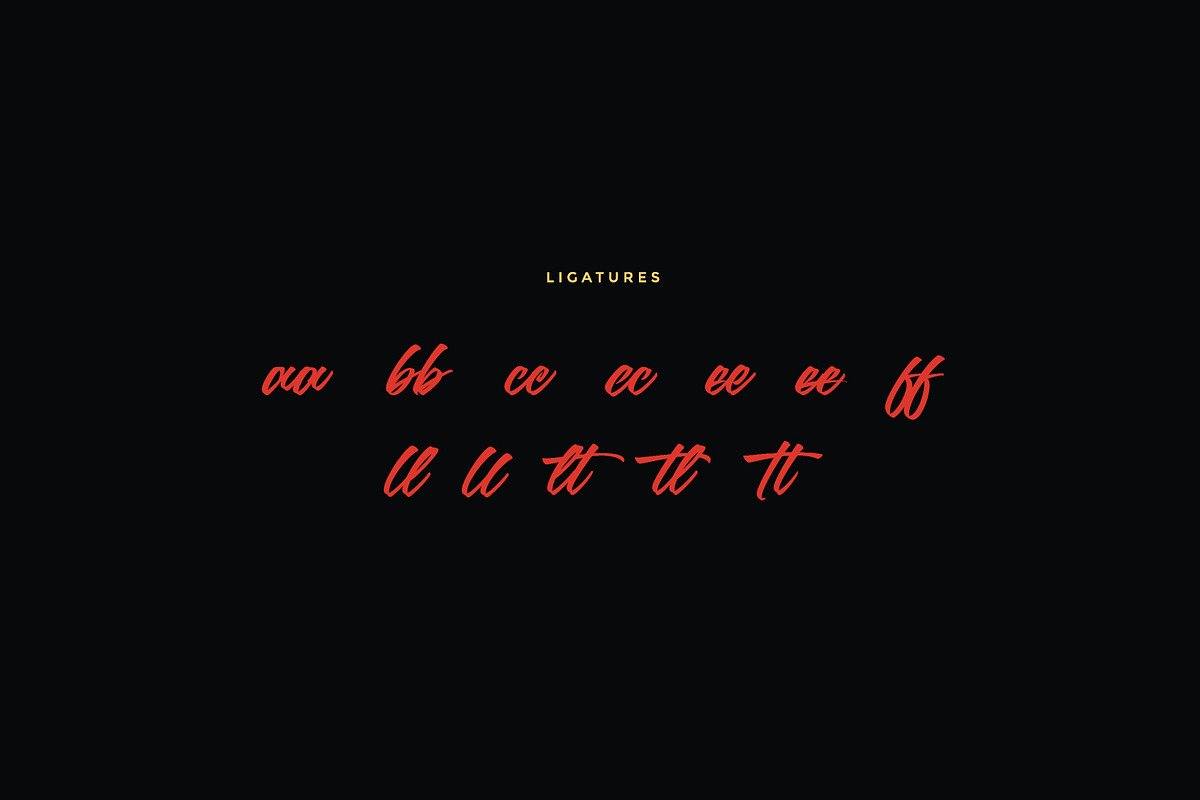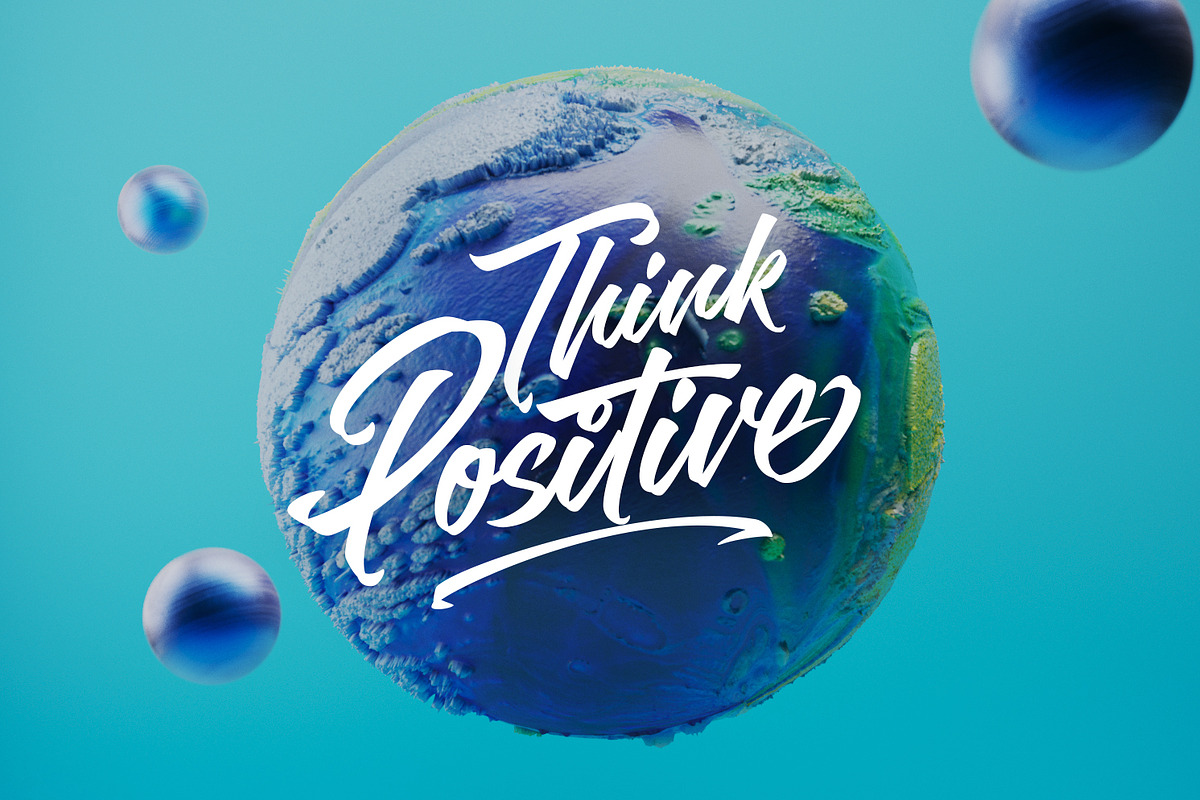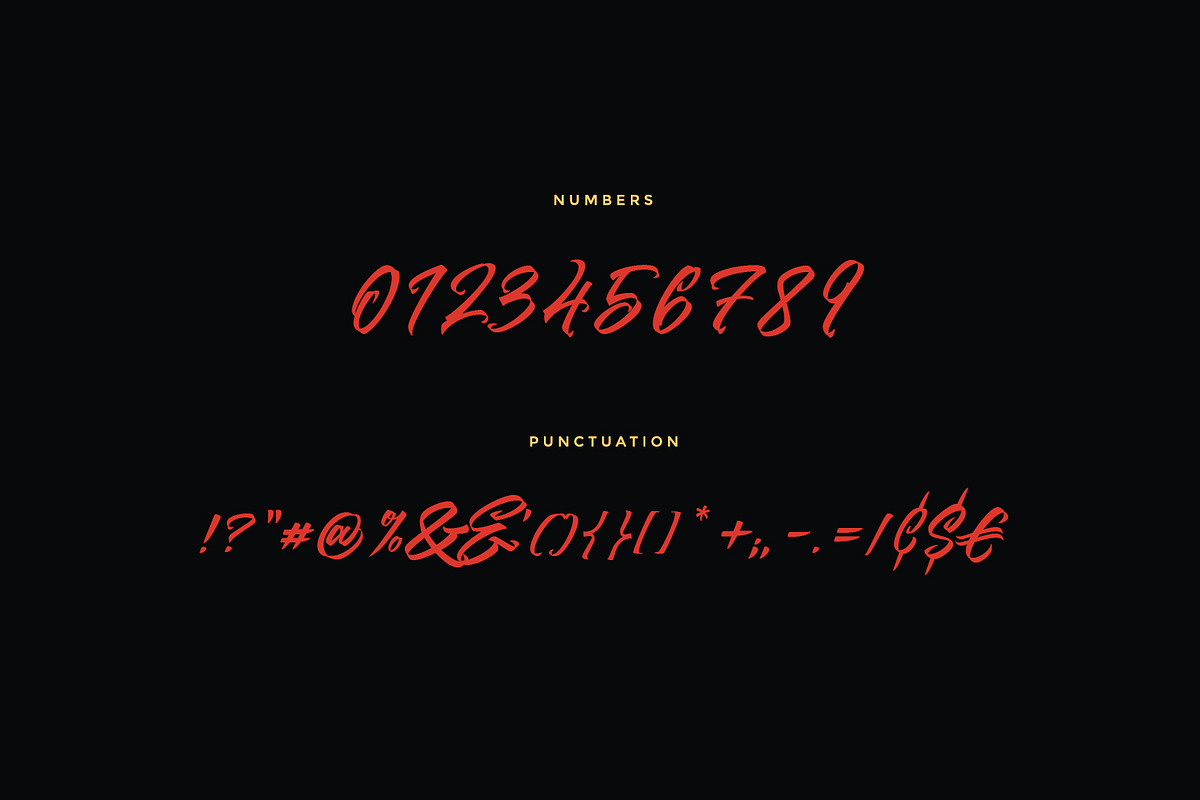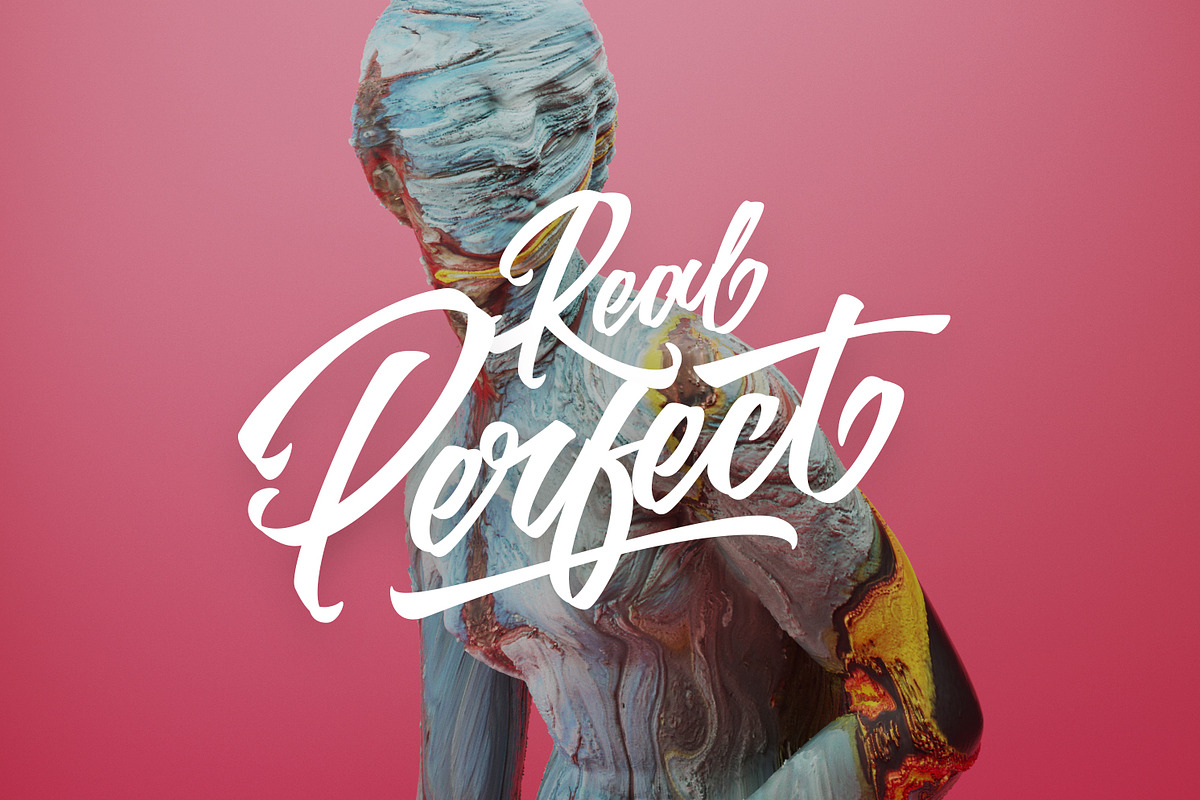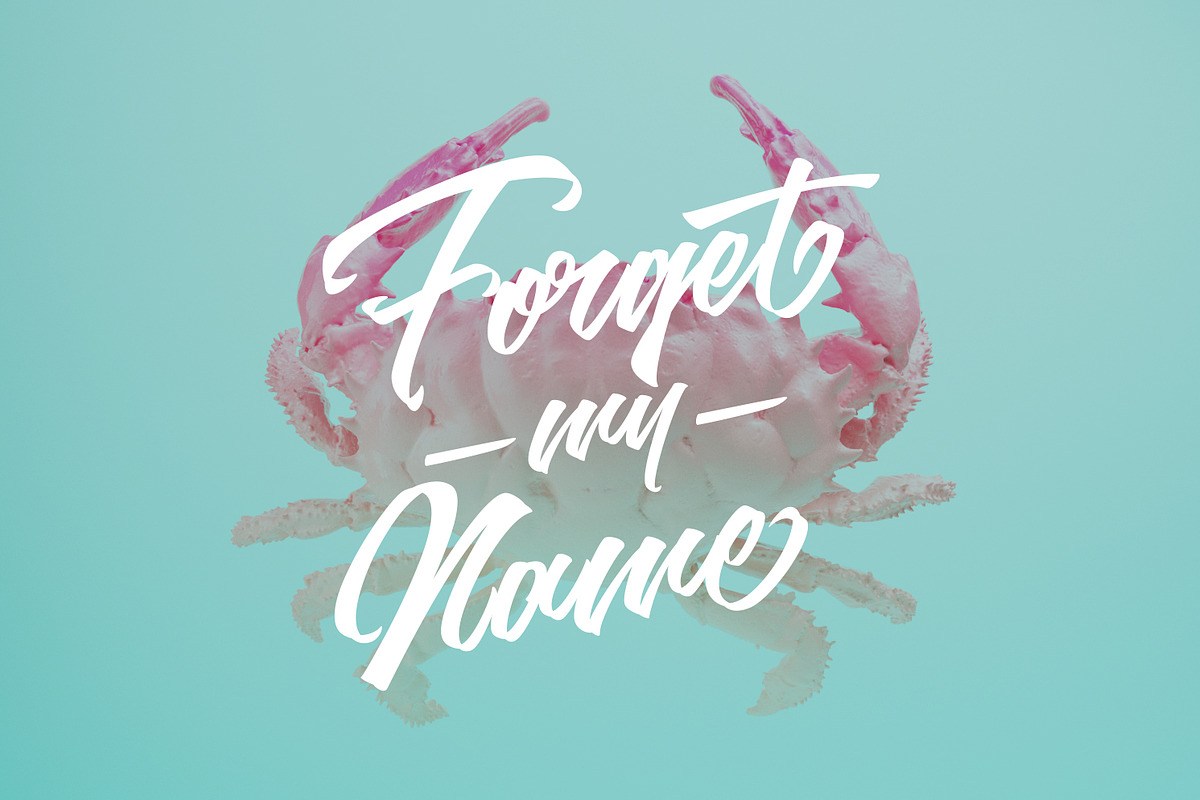
Goliath script font
Goliath script font by kavoon is a font selected for branding, posters, packaging, typography.
- The flowing characters are ideal to make an attractive messages, mix and match Goliath with a bunch of alternative characters to fit your pr
- The alternative characters in this font were divided into several OpenType features such as Stylistic Alternates, Stylistic Sets, and Ligatu
Why Goliath script font is worth a look
Goliath script font by kavoon fits naturally into Branding, posters, packaging, typography.